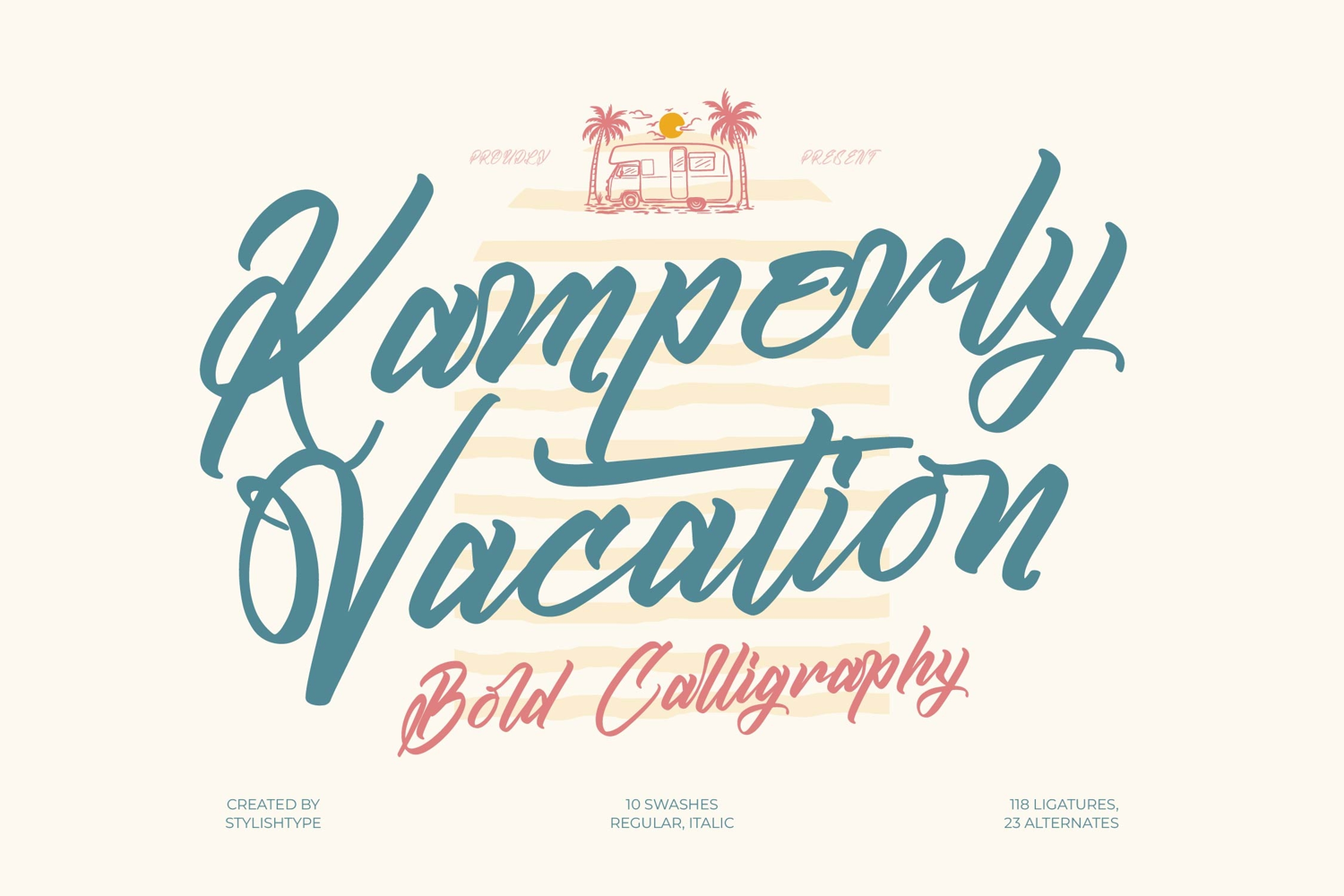
Kamperly Vacation - Bold Calligraphy Font
Kamperly Vacation Italic
Kamperly Vacation
Capture attention with effortless style and dynamic energy. Kamperly Vacation - Bold Calligraphy Font is a high-impact script designed to convey authentic movement and immediate warmth. Characterized by its generous, sweeping letterforms and impressive weight, this typeface merges the spontaneous feel of handwritten artistry with professional typographic structure. Its bold presence ensures maximum legibility and impact, making it ideal for large-scale headlines, logotypes, and display graphics that demand a statement piece.